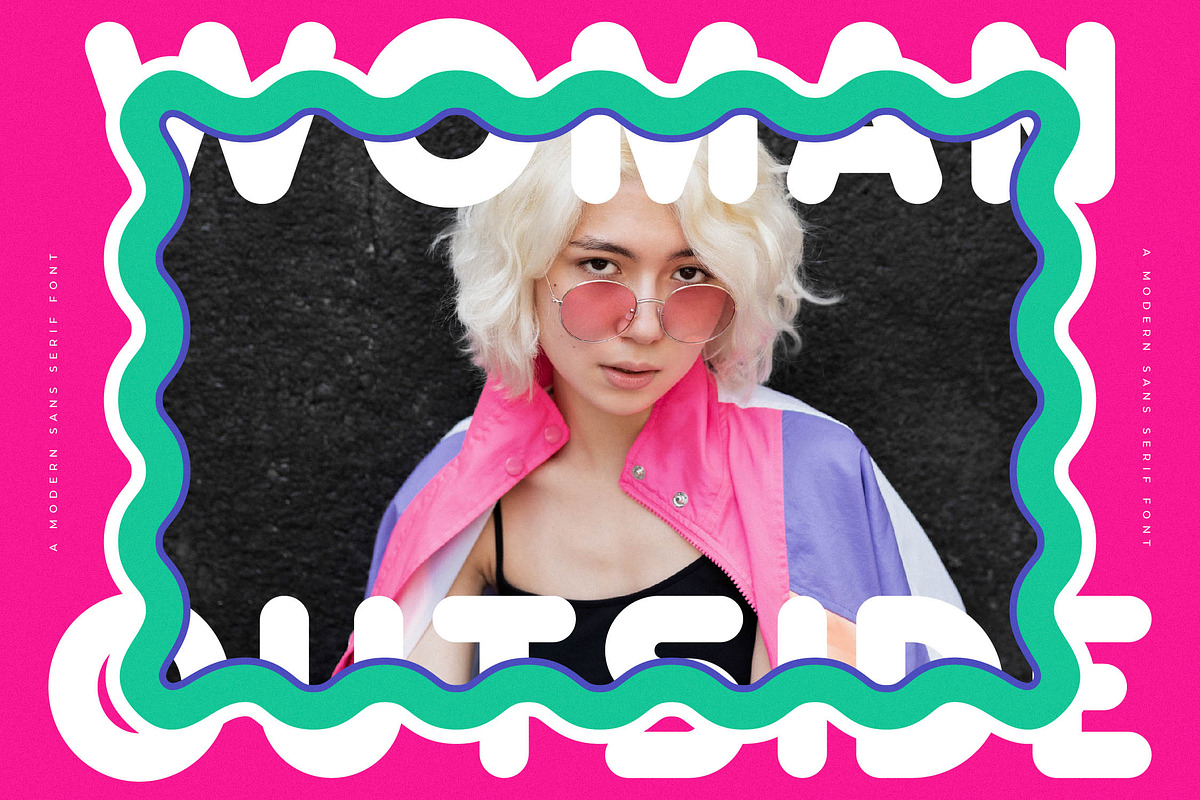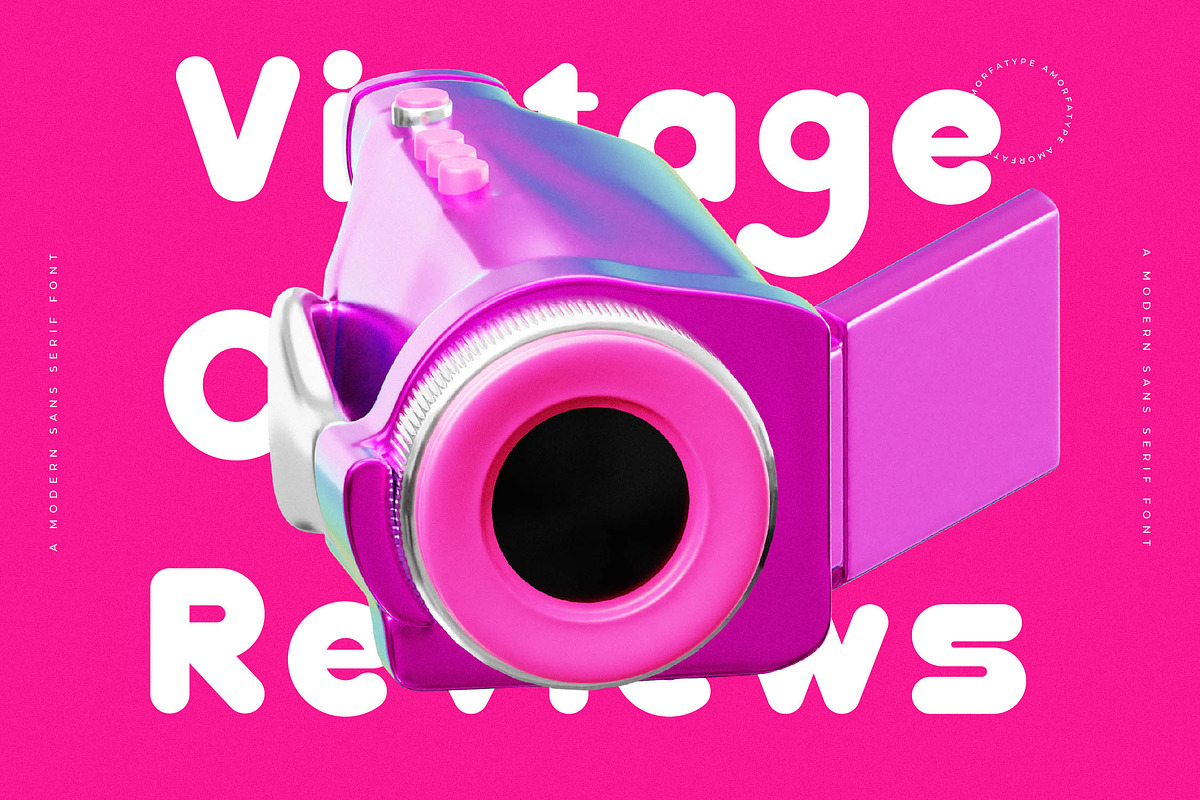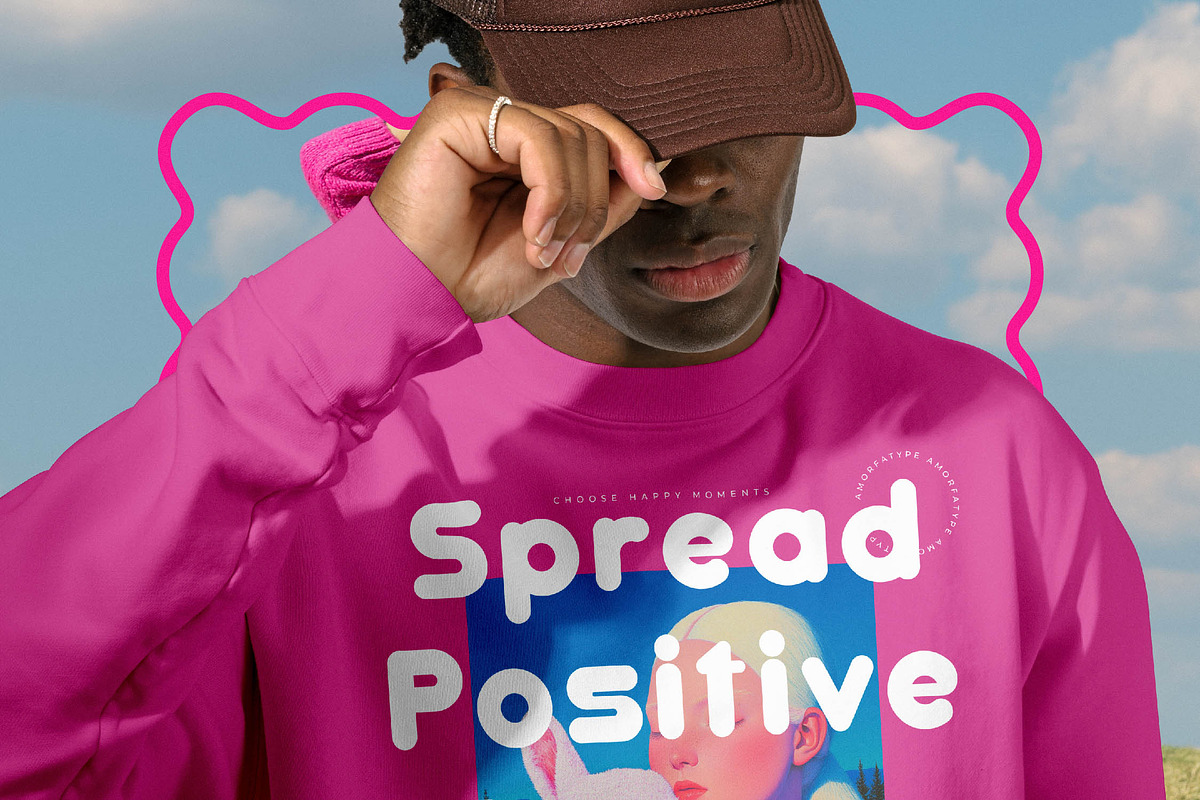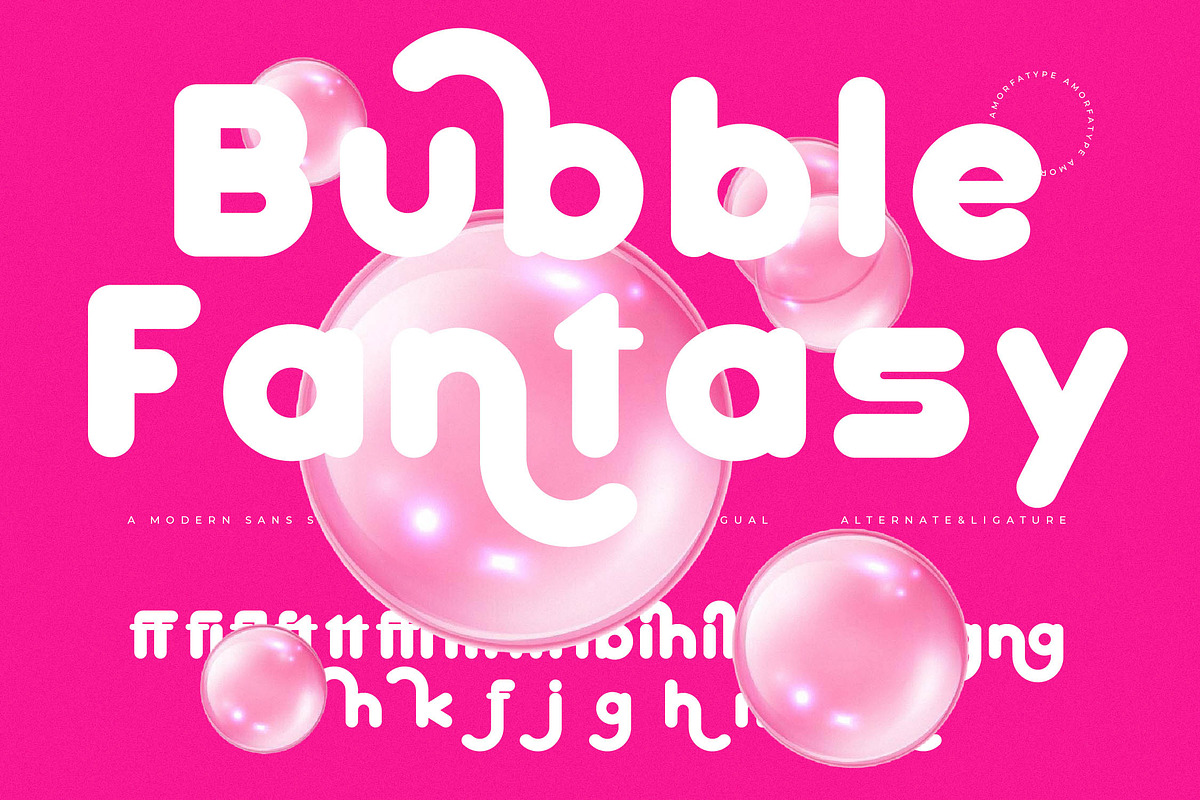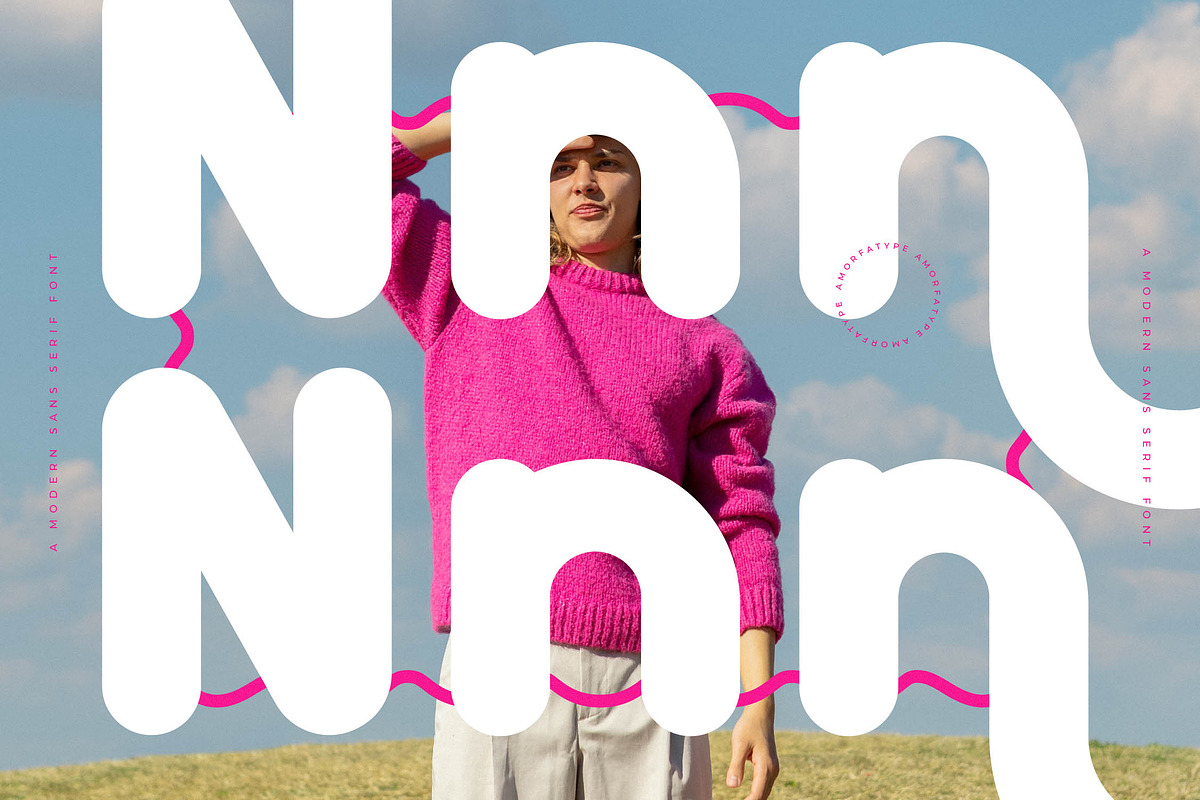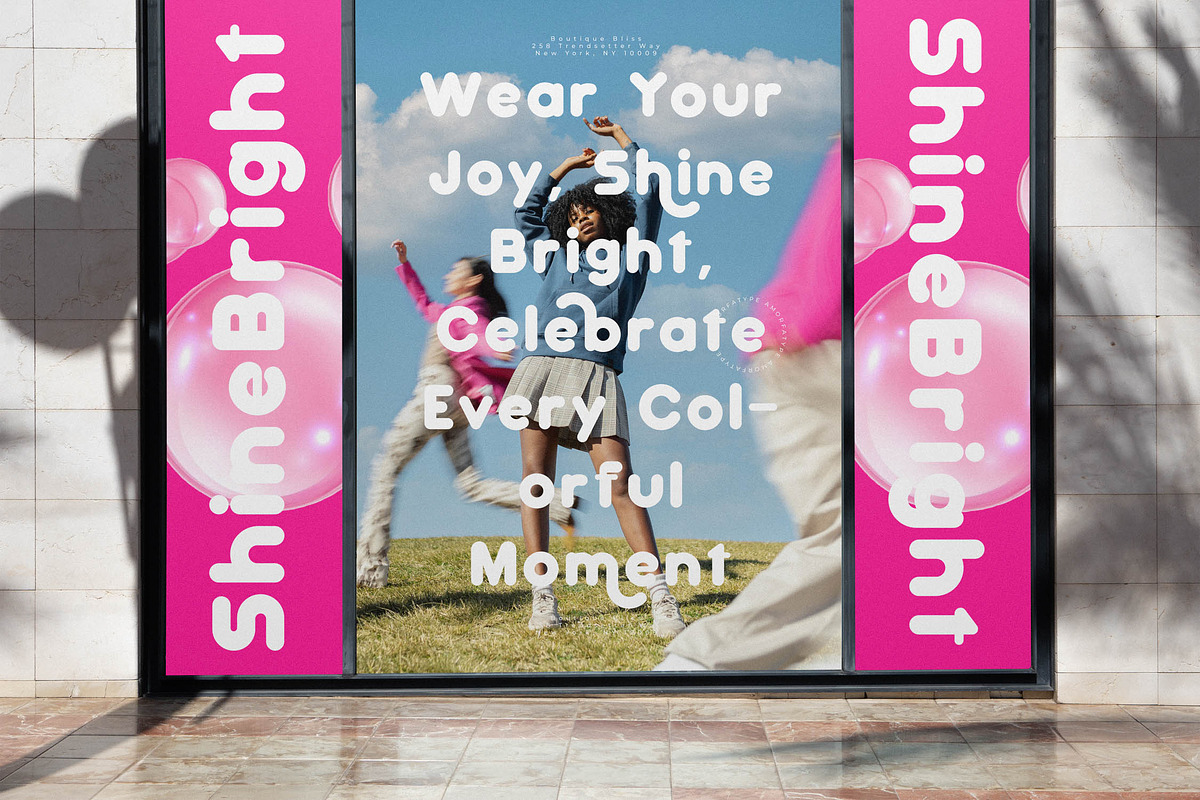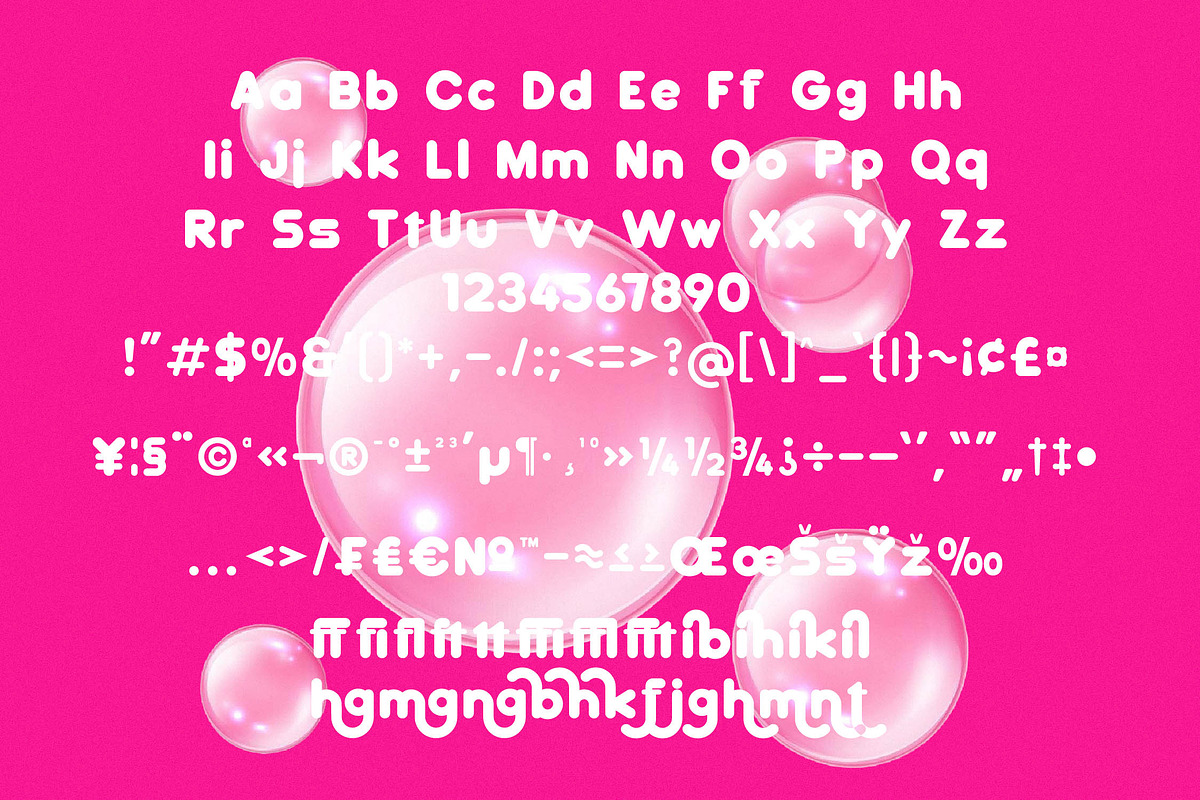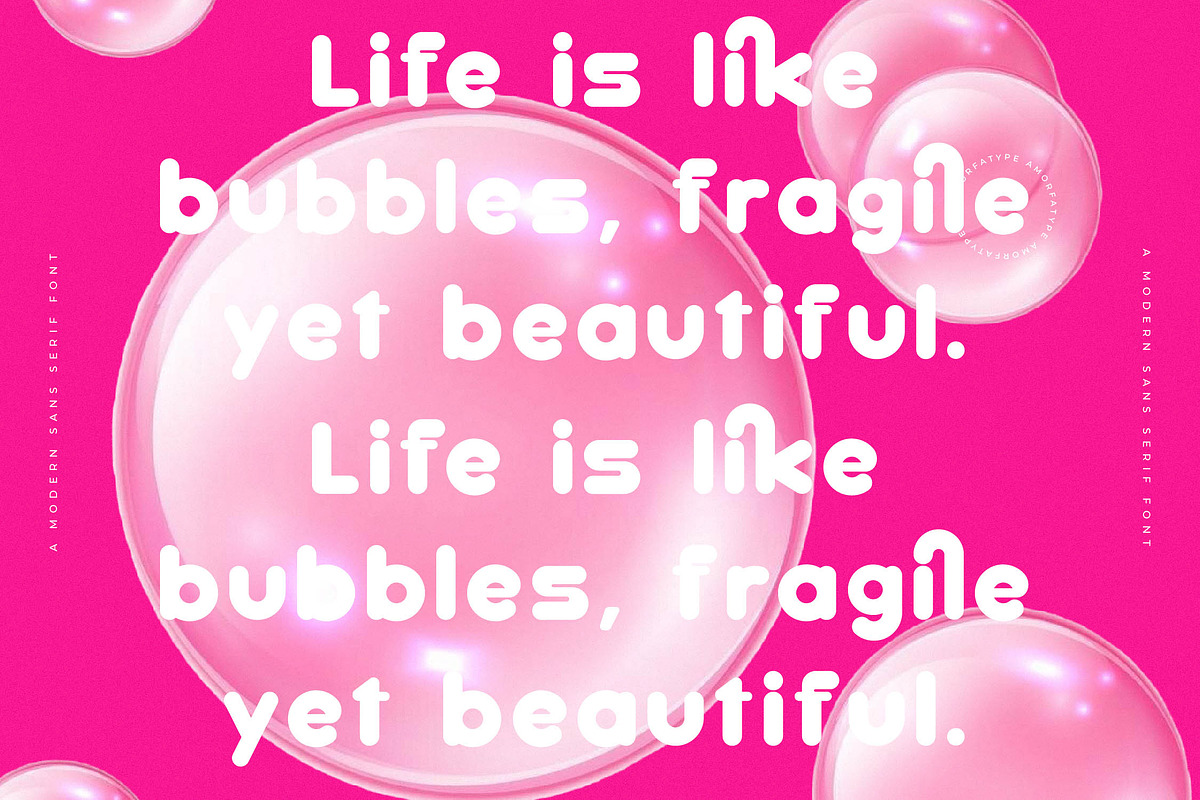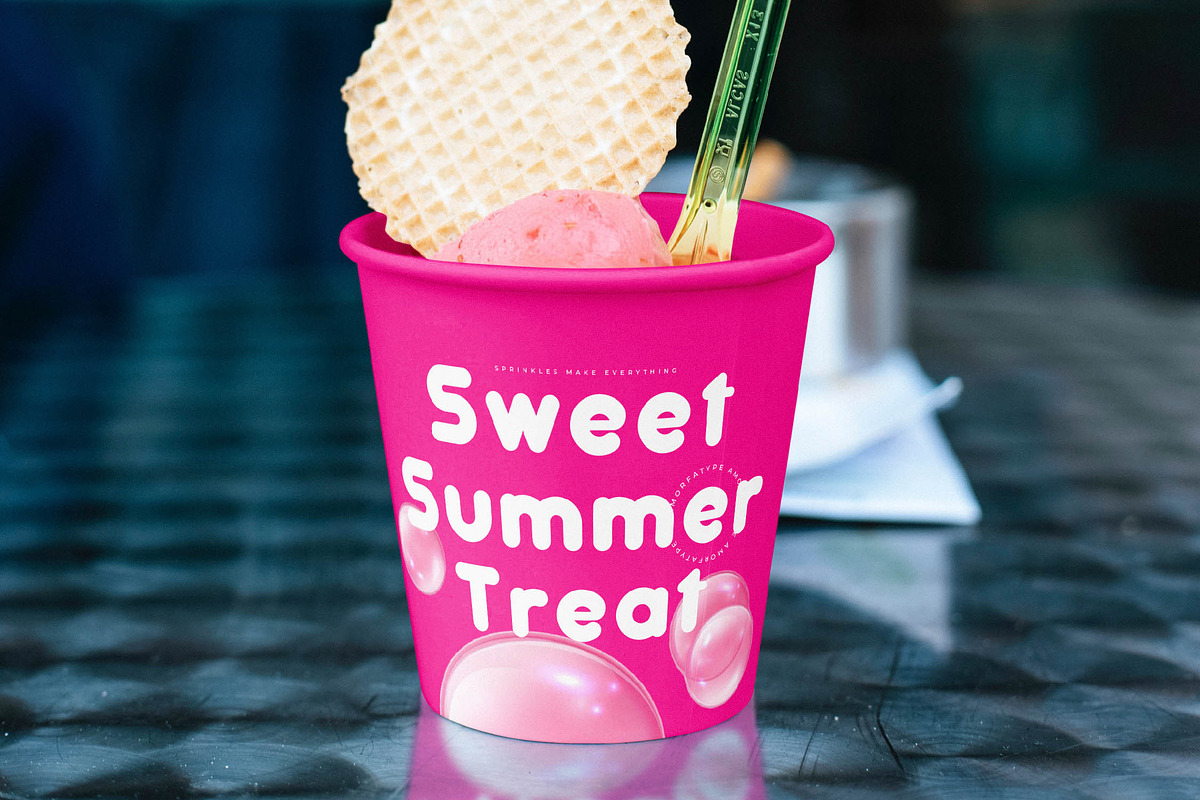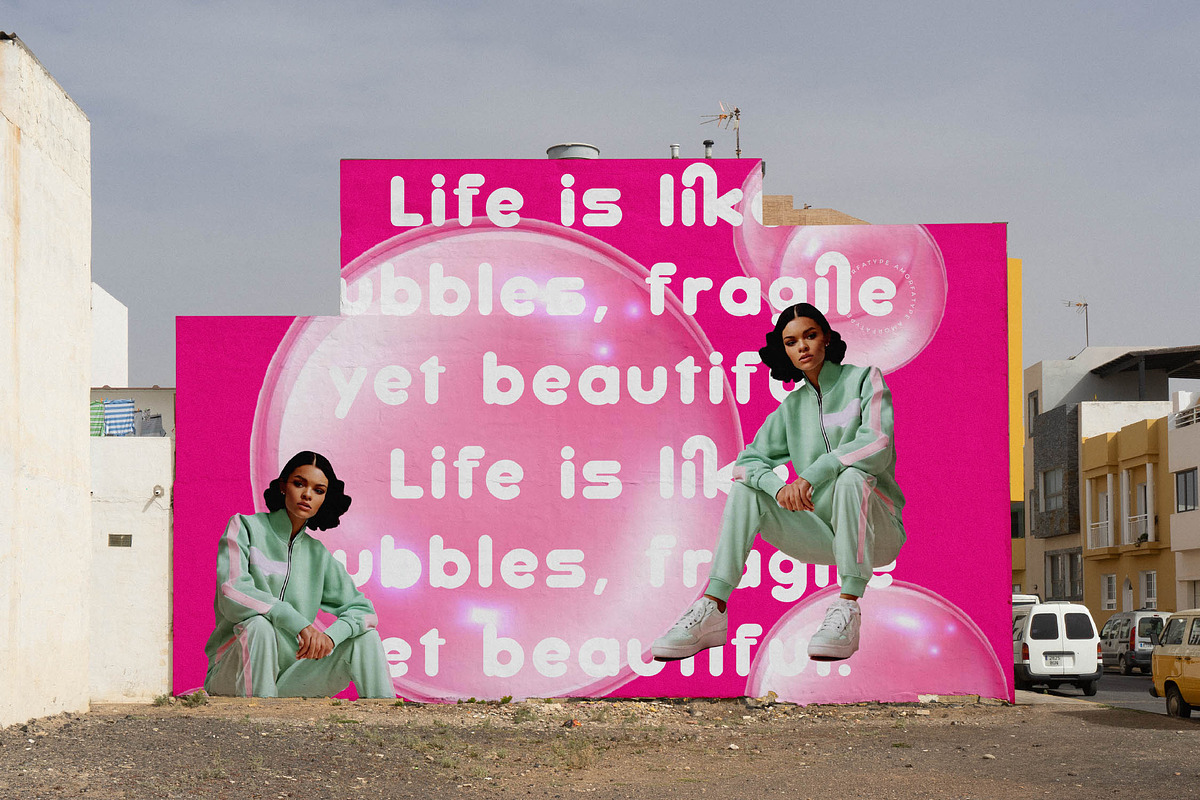
Bubble Fantasy Playful Sans Serif
Bubble Fantasy: A Playful Rounded Sans Serif Font by Amorfatype
Bubble Fantasy is a delightful rounded sans serif font that captures the spirit of whimsy and fun. With its soft curves and friendly appearance, this font radiates approachability and joy, making it perfect for a variety of creative projects. Each character is thoughtfully crafted to ensure legibility while exuding a playful charm.
Ideal for children’s books, vibrant branding, or playful editorial designs, Bubble Fantasy adds a touch of lightheartedness to any composition. Elevate your designs with this enchanting font, bringing a sense of joy and creativity to every project!
- Ligatures, Alternates & Swashes